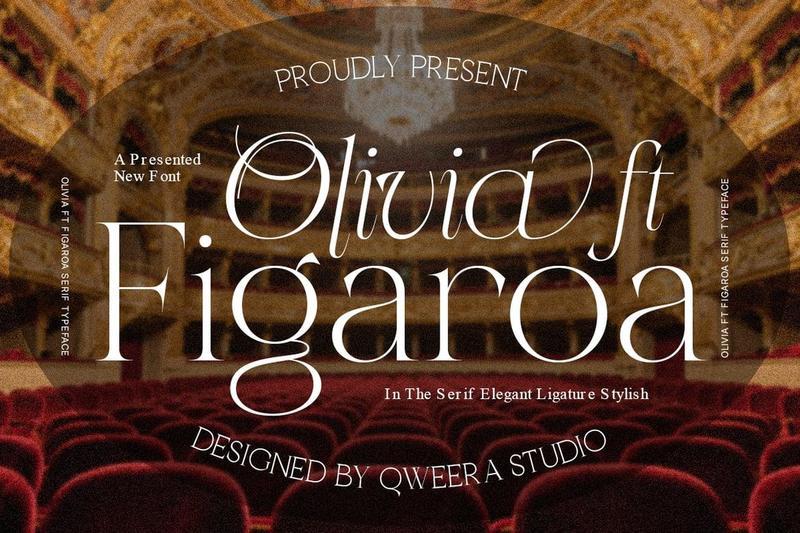
Luxury Branding Serif – Olivia ft Figaroa Q7ERUHS
**Olivia ft Figaroa** is a sophisticated luxury serif typeface designed to bring timeless elegance into modern creative projects. Featuring graceful curves, stylish alternates, and expressive ligatures, this font creates premium typography with a refined editorial character.
Olivia ft Figaroa combines classic serif beauty with contemporary sophistication, making it a perfect choice for designers who seek elegant, luxurious typography.
**Features**
– Uppercase & lowercase
– Alternates & ligatures
– Multilingual support
– Professional kerning
– Regular & Italic